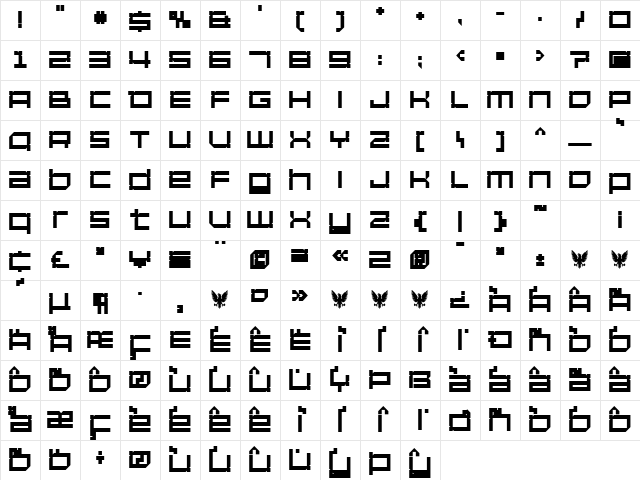
Unfinished ExtraBold
Foundry: YouWorkForThem
Designer: Michael Cina & Michael Young
Unfinished Family
Design Context for Unfinished
Unfinished is a composed and adaptable typeface that performs quietly and consistently across a wide range of design contexts. Its bold stroke weight gives it real presence on the page.